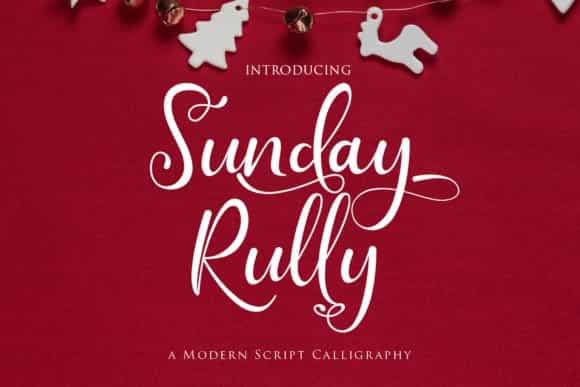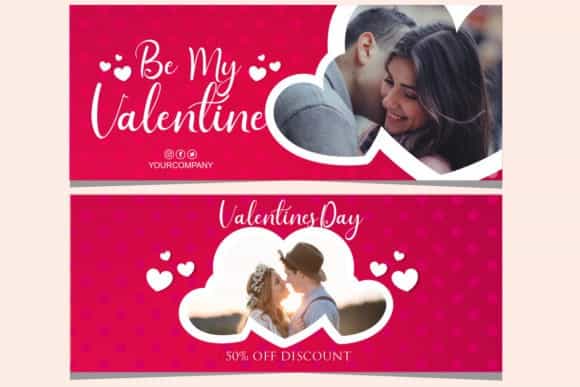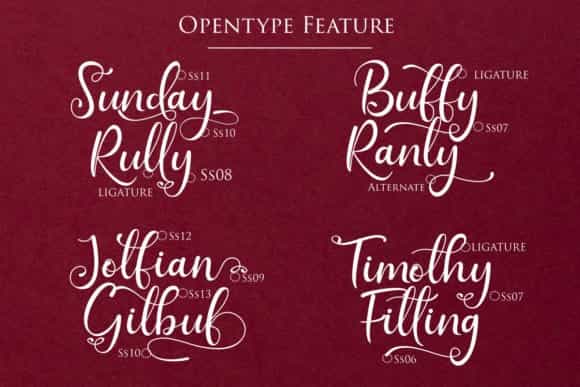
Meet Sunday Rully Font, cute modern script that will give you a luxury feel. Natural hand writing script is appropriate for you that needs a typeface for headline, logotype, apparel, invitation, branding, packaging, advertising etc. It comes in uppercase, lowercase, punctuations, symbols & numerals, stylistic set alternate, ligatures.